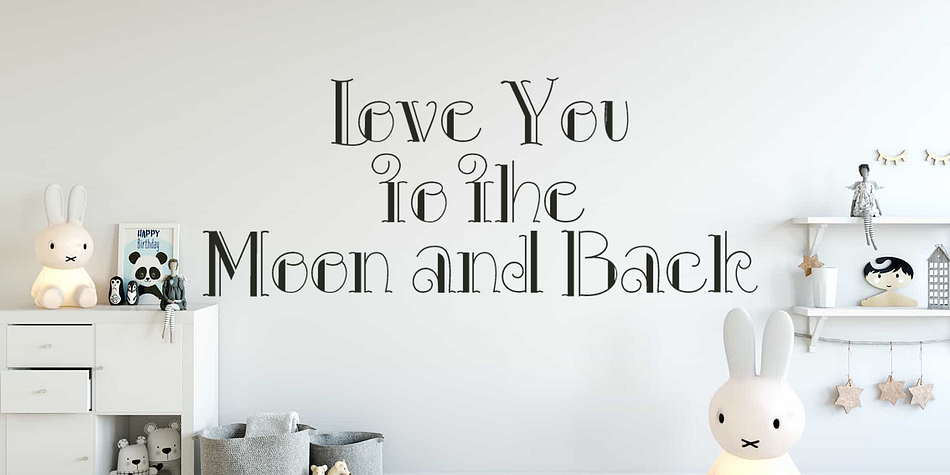
Mini Honysa
Mini Honysa is an art deco and hand display font family published by Gatype.
Mini Honysa, This Font is a modern look perfect for branding, invitations, stationery, wedding designs, social media posts, a dvertisements, product packaging, product designs, labels, photography, watermarks, special events and more. Mini Honysa is encoded with PUA Unicode, which allows full access to all additional characters without having to design any special software. Mac users can use Font Book, and Windows users can use Character Map to view and copy any additional characters to paste into your favorite text editor/app.